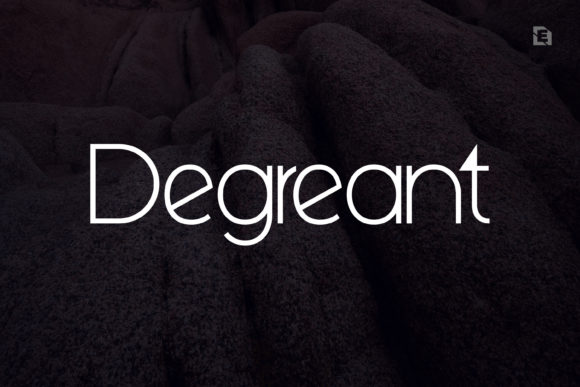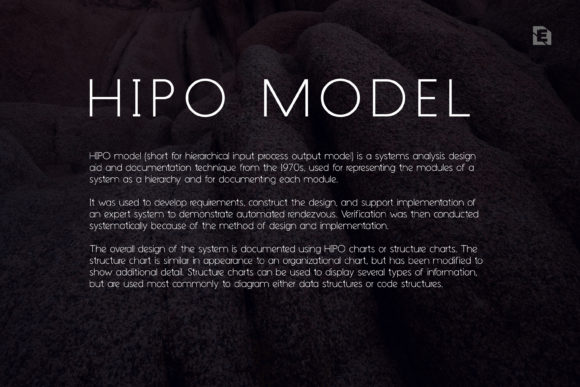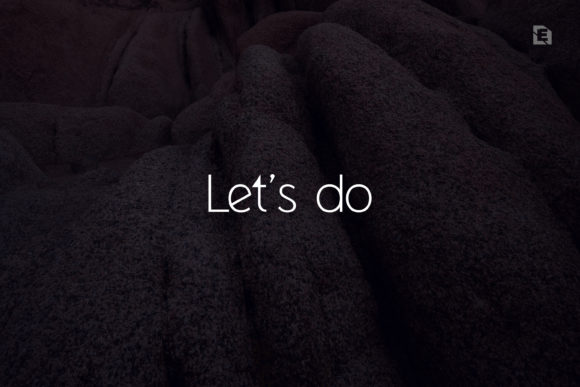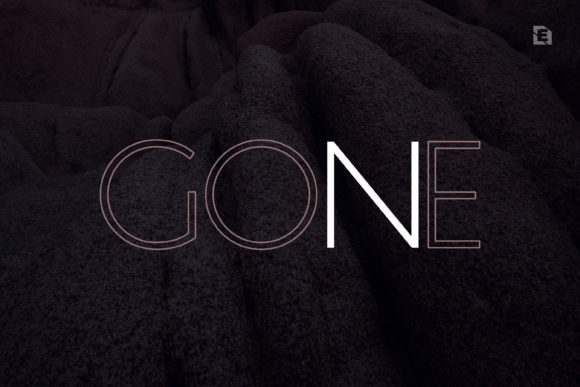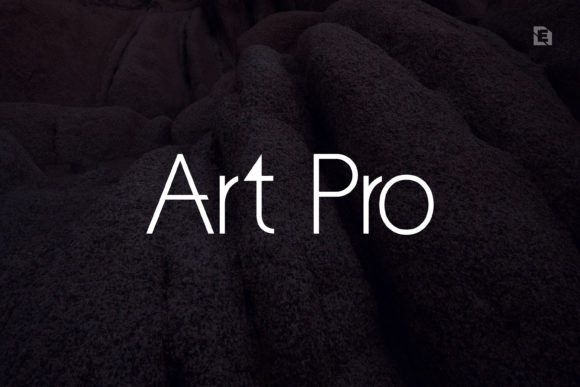
Introducing Art Pro Font: Elevate Your Designs with Minimalist Elegance
In the world of design, fonts play a crucial role in conveying messages, expressing creativity, and capturing the audience’s attention. For designers and crafters seeking a versatile and stylish sans serif font, Art Pro is an excellent choice. This minimal and neat font is designed to complement a wide range of projects, making it an ideal addition to your creative toolkit.
What is Art Pro Font?
Art Pro is a carefully crafted sans serif font that exudes simplicity and sophistication. Its clean lines, subtle curves, and balanced proportions make it perfect for various design applications, from digital media to print materials. With Art Pro, you can add a touch of elegance and modernity to your projects, setting them apart from the rest.
Key Features of Art Pro Font
- Minimalist Design: Art Pro’s sleek and minimalist design ensures that your message takes center stage, without any distractions.
- Versatility: This font is incredibly versatile, making it suitable for a wide range of projects, including logos, headings, body text, and more.
- Easy to Read: Art Pro’s clear and legible design ensures that your text is easy to read, even at smaller font sizes.
- Highly Customizable: With Art Pro, you can experiment with various font sizes, colors, and styles to match your unique design vision.
Use Cases for Art Pro Font
Art Pro’s adaptability makes it an excellent choice for various design projects, including:
- Branding and Logos: Create a lasting impression with Art Pro’s sleek and modern design, perfect for logos, business cards, and letterheads.
- Digital Media: Use Art Pro for website headers, social media graphics, and digital advertisements to add a touch of sophistication.
- Print Materials: Art Pro is ideal for brochures, flyers, posters, and other print materials, where its clarity and legibility shine.
- Crafting and DIY Projects: Add a professional touch to your crafting and DIY projects, such as handmade cards, invitations, and labels.
Tips for Using Art Pro Font
To get the most out of Art Pro, consider the following tips:
- Pair with Other Fonts: Experiment with pairing Art Pro with other fonts to create visually appealing contrast and hierarchy.
- Adjust Font Sizes: Play with font sizes to create emphasis and add depth to your design.
- Color Matters: Choose colors that complement Art Pro’s minimalist design, and experiment with different color schemes to find the perfect match.
Art Pro is a versatile and stylish sans serif font that can elevate your designs and add a touch of sophistication. Its minimalist design, versatility, and ease of use make it an excellent choice for designers and crafters. With Art Pro, you can create stunning visual content that stands out from the crowd. So, add Art Pro to your creative toolkit today and discover the endless possibilities it offers!
Whether you’re a seasoned designer or a crafting enthusiast, Art Pro is sure to become a go-to font in your creative arsenal. Its clean lines, legibility, and adaptability make it perfect for a wide range of projects. So, why wait? Explore the world of Art Pro and unleash your creativity!